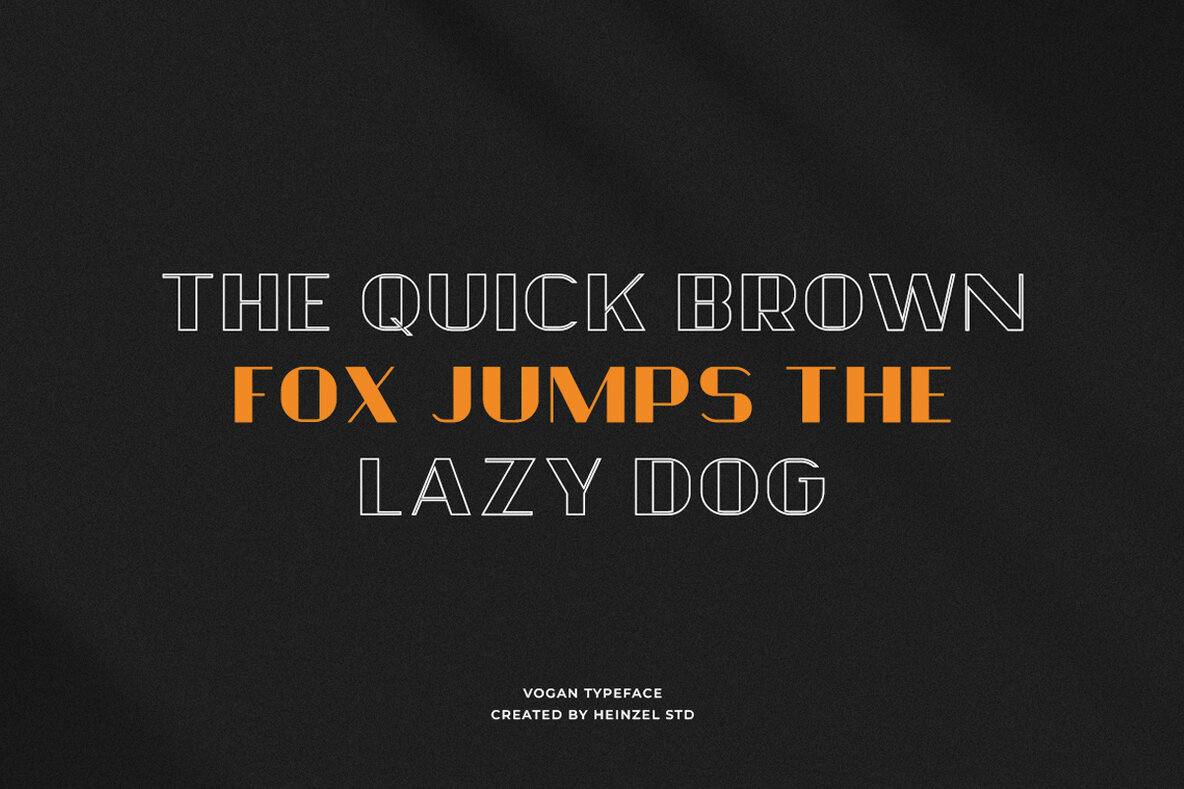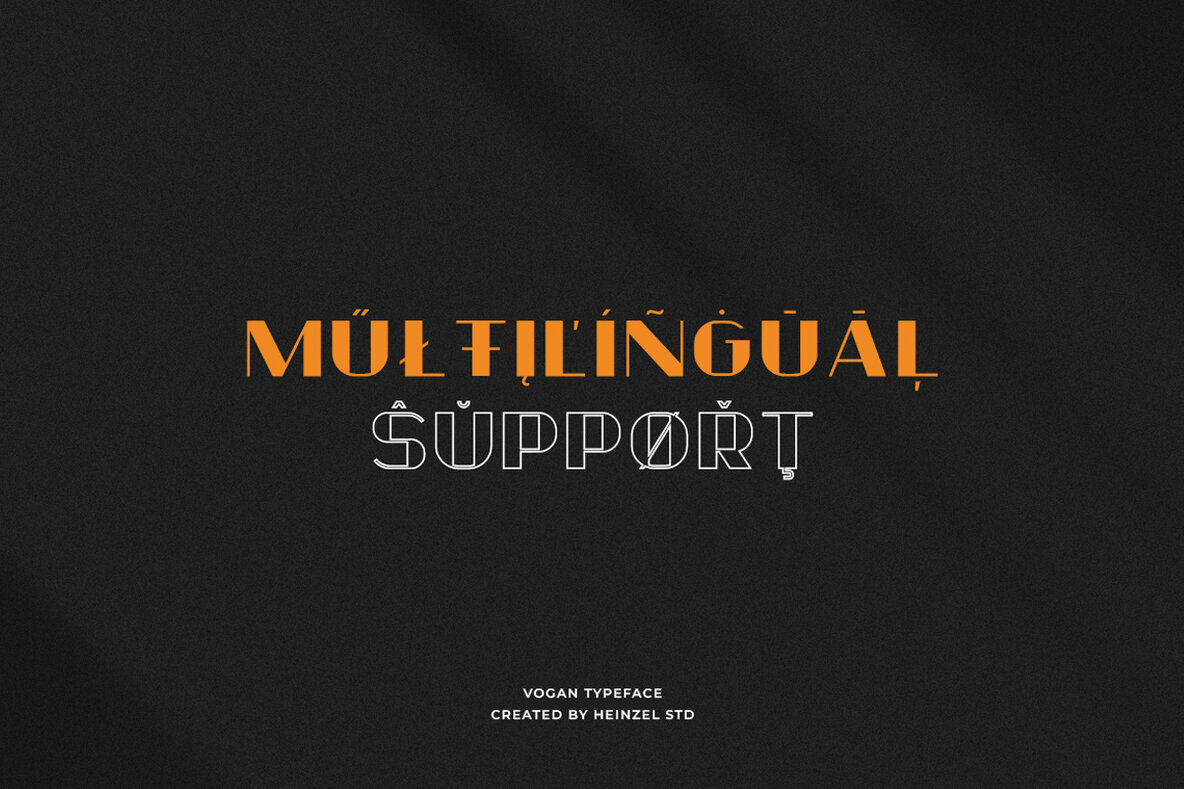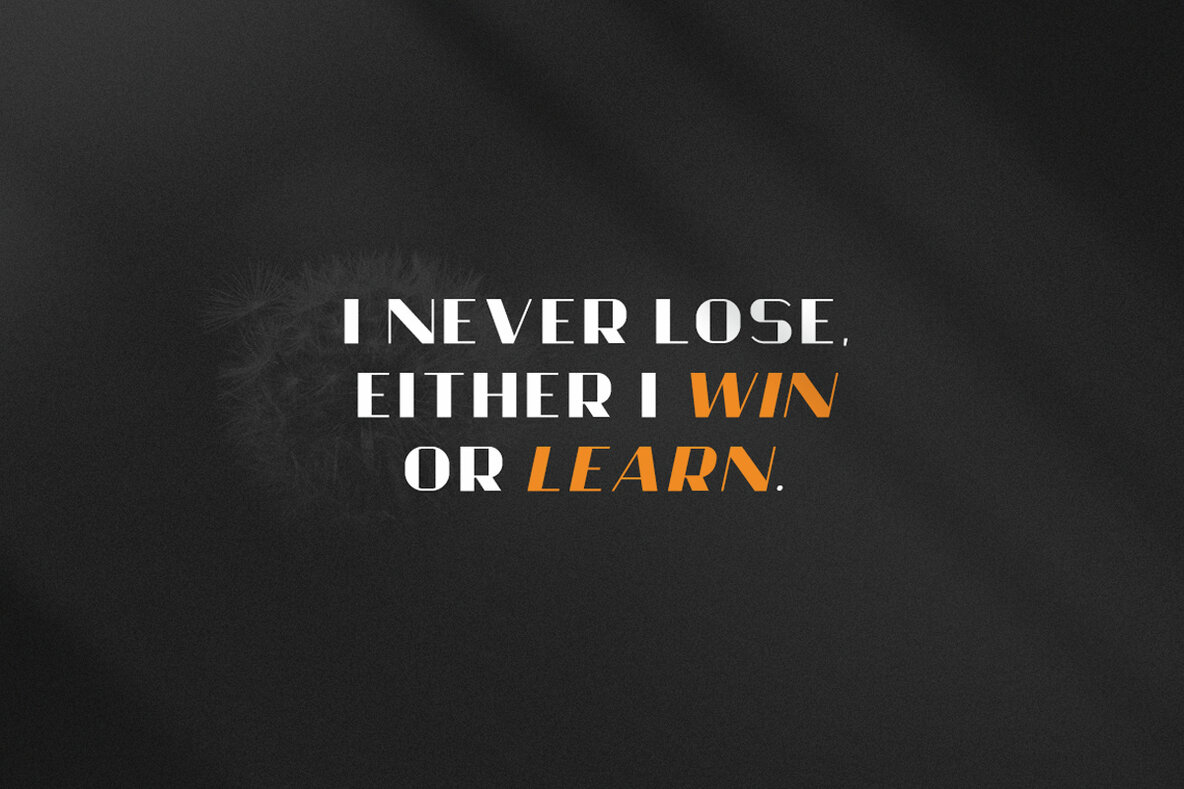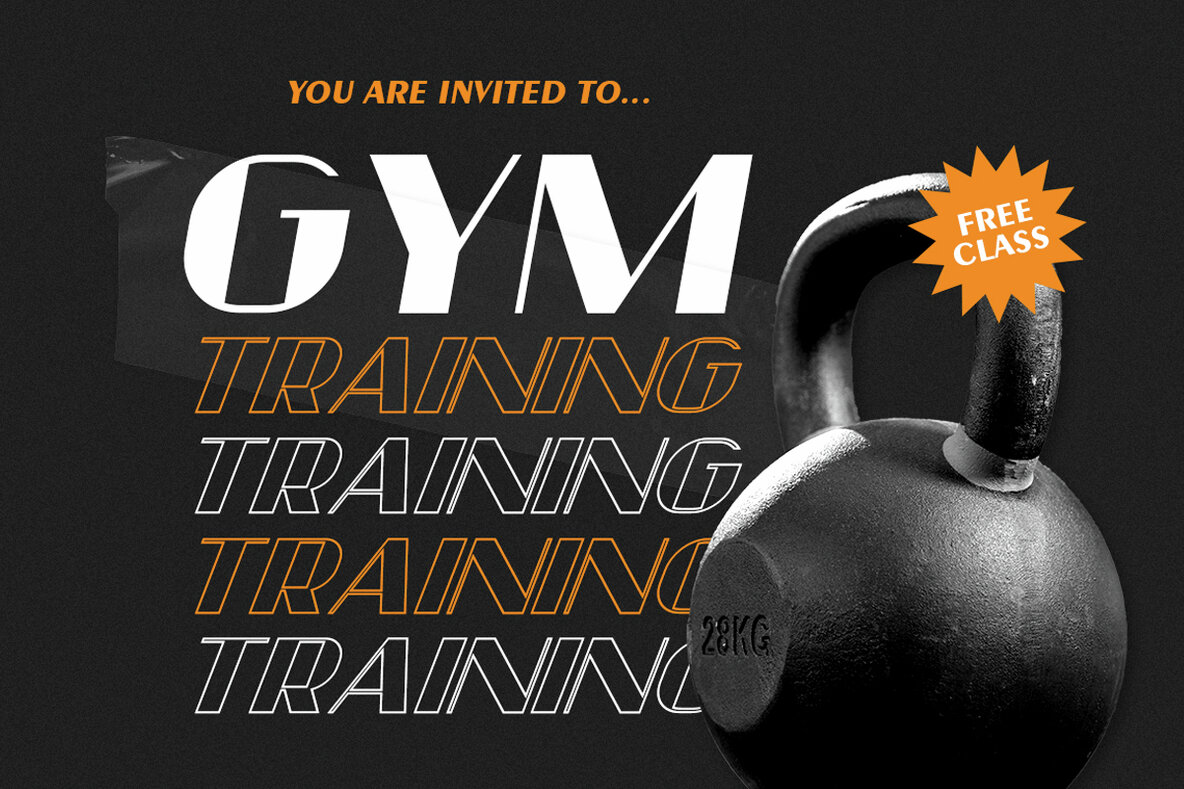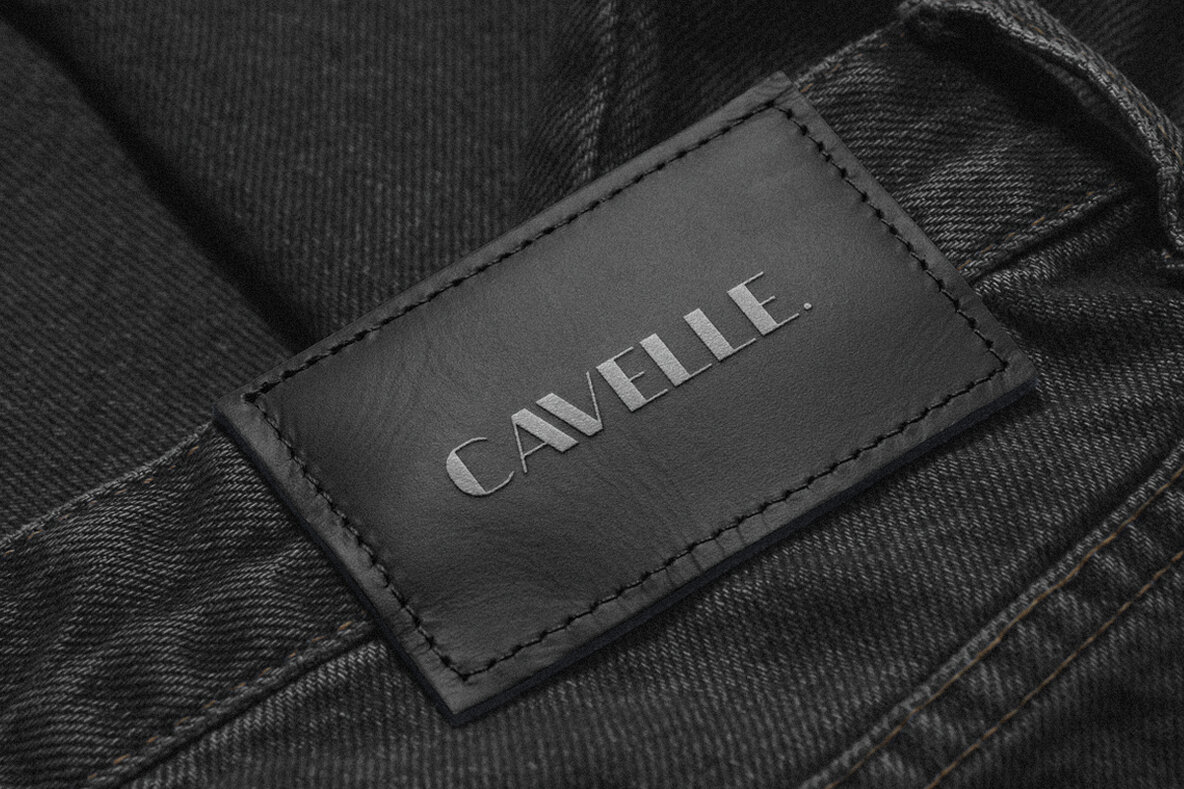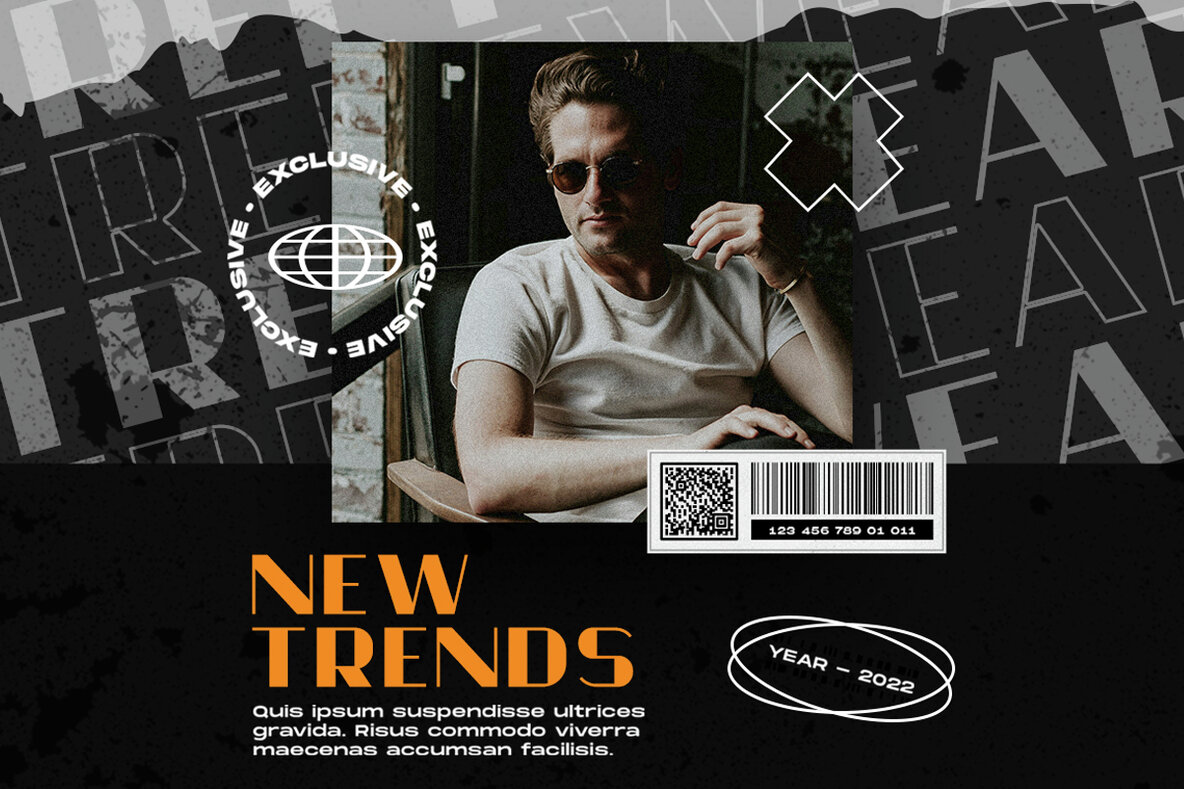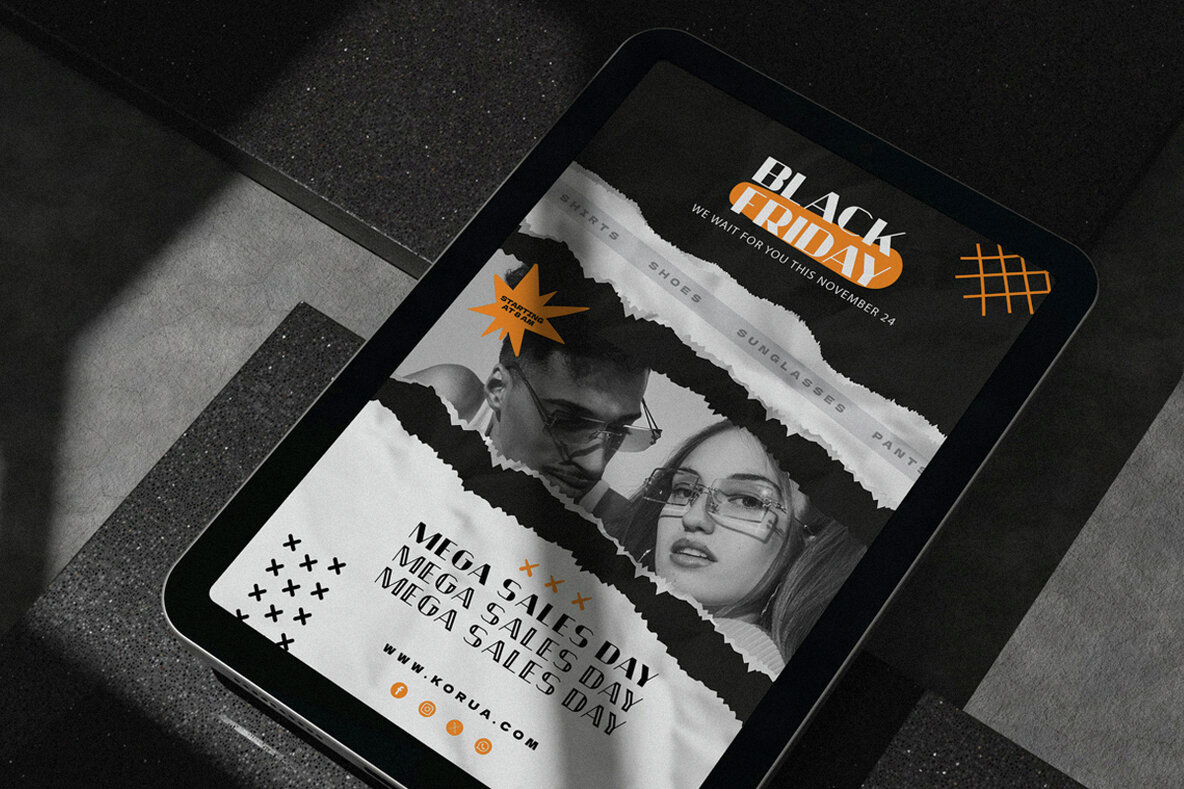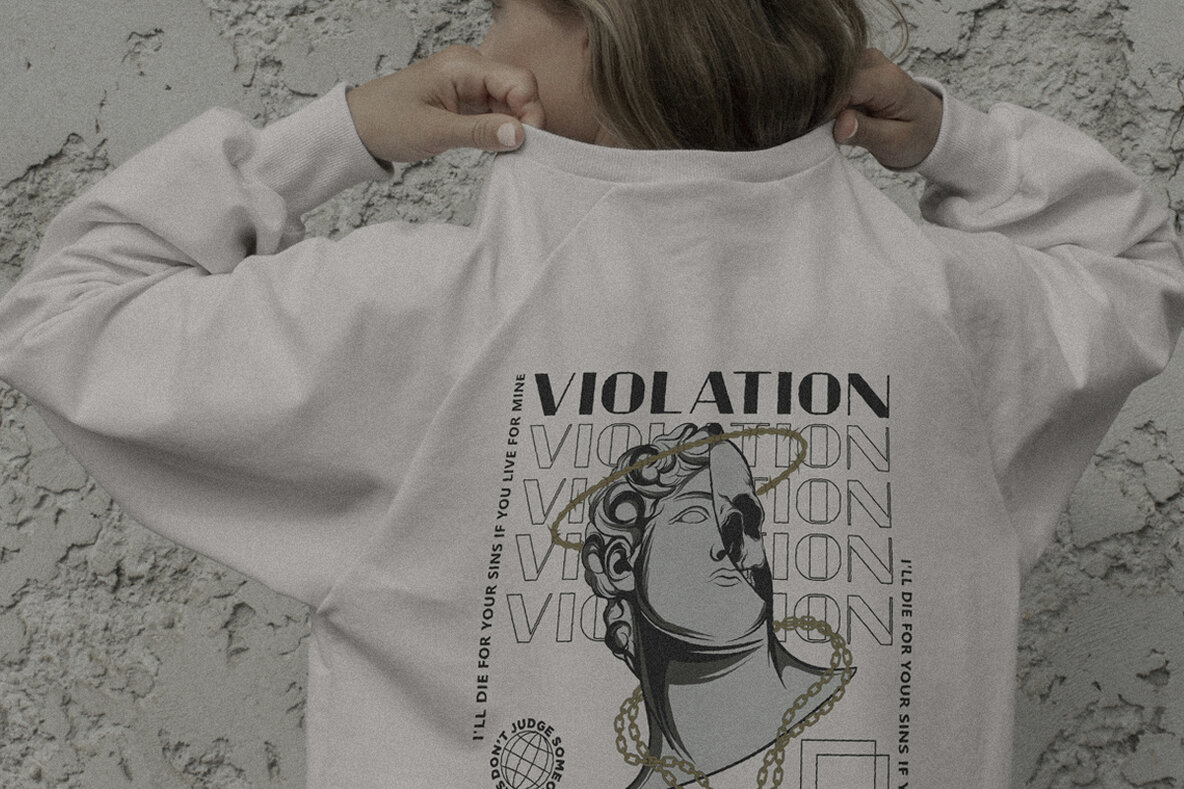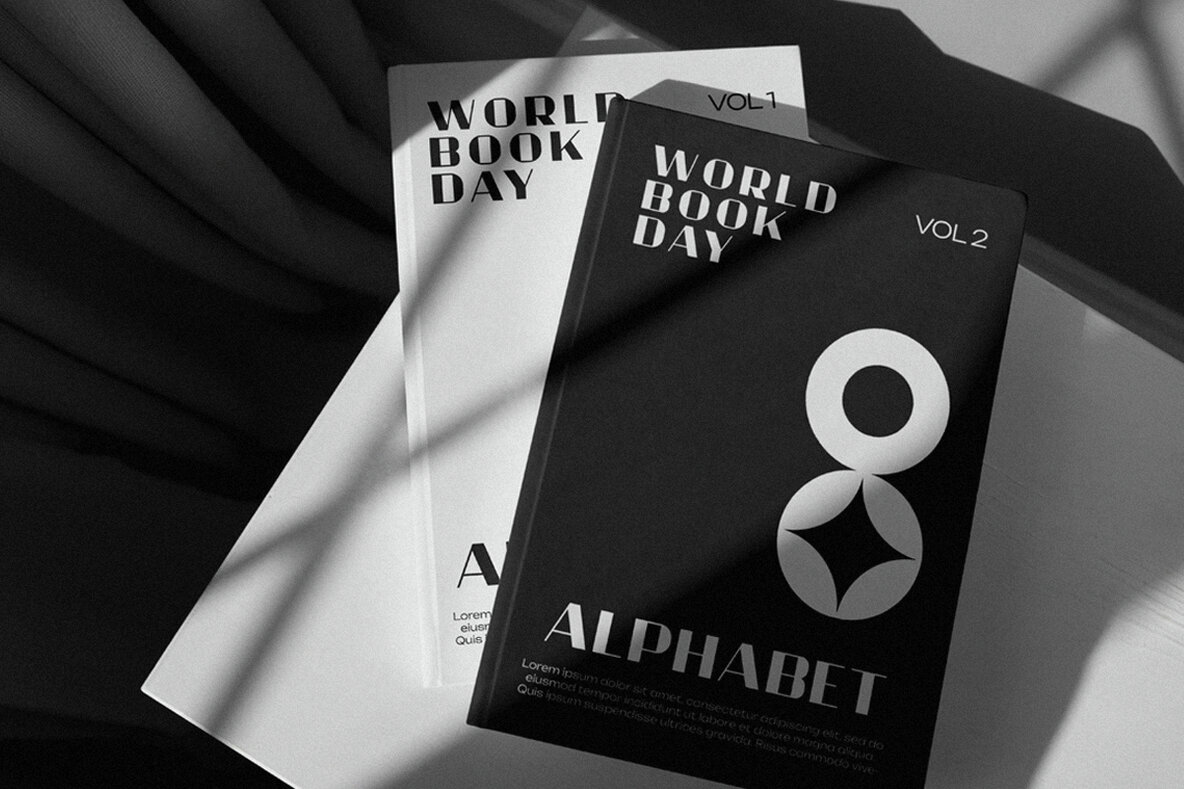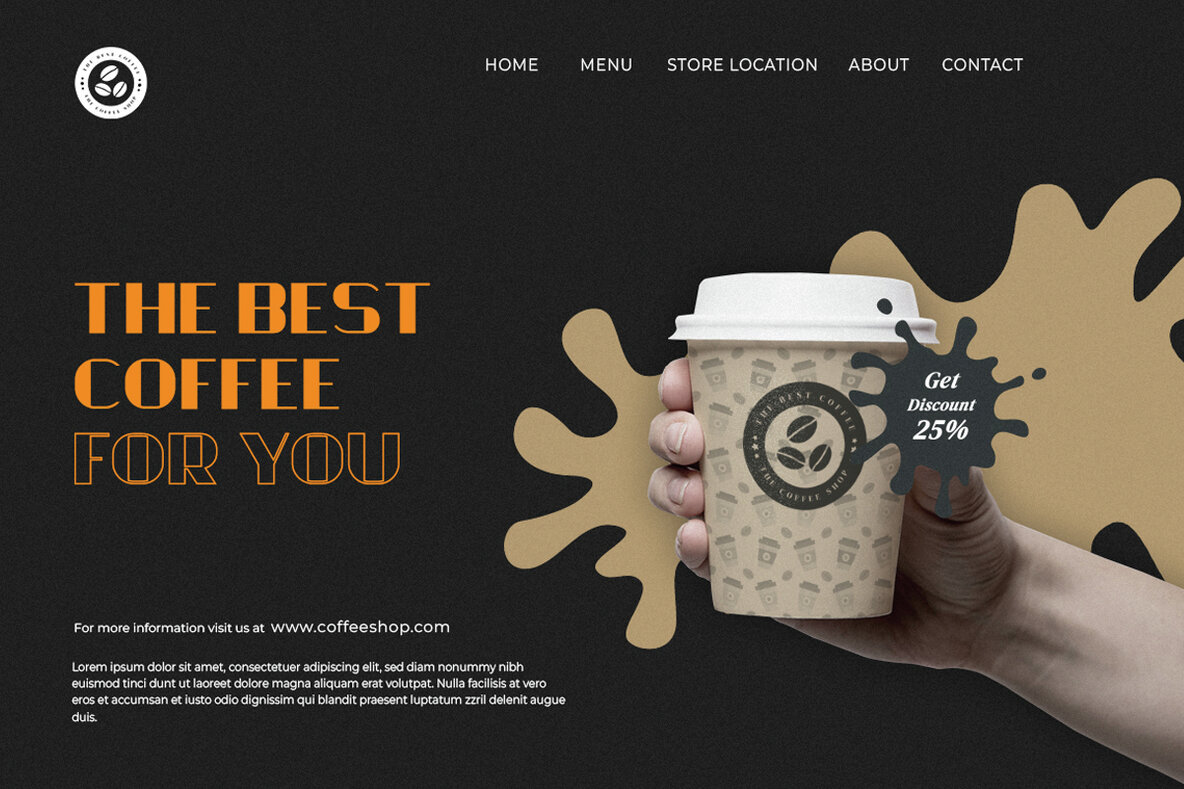
Vogan Font
Vogan Typeface is a versatile font that comes in both regular and outline versions, both of which are in all capital letters. The regular version of the Vogan typeface features solid, bold characters that are perfect for making a statement. The letters are clean and well-defined, making them highly readable and suitable for a variety of design projects. Whether used for headings, logos, posters, or other creative applications, the regular version of Vogan Typeface commands attention with its bold and impactful appearance. In contrast, the outline version of Vogan Typeface provides a different aesthetic. The characters in this version are defined by their outer contours, creating a stylish and modern look. The outline font maintains the overall shape of the letters while allowing the background to show through the center, adding a touch of sophistication and creativity to any design. This version is particularly popular for design projects where a contemporary and edgy vibe is desired.